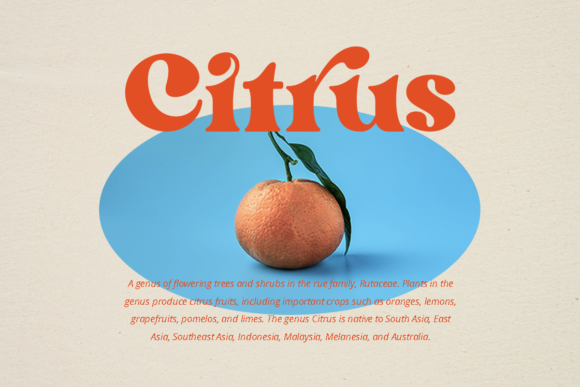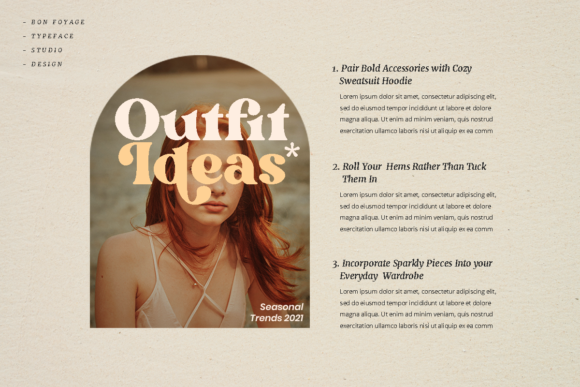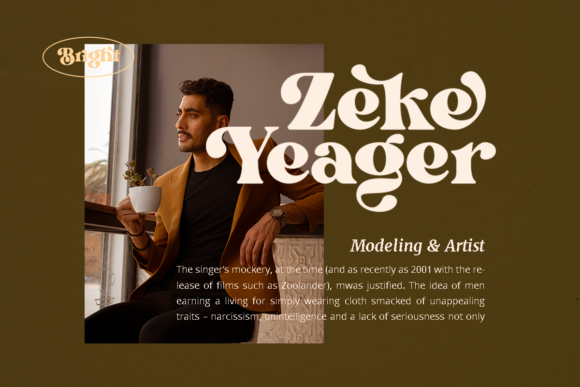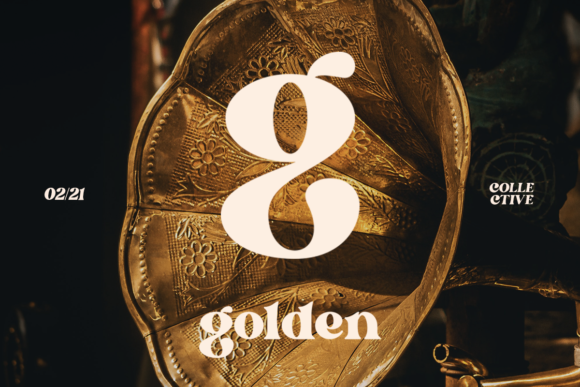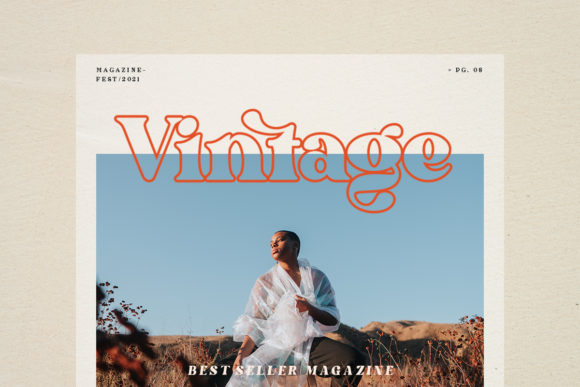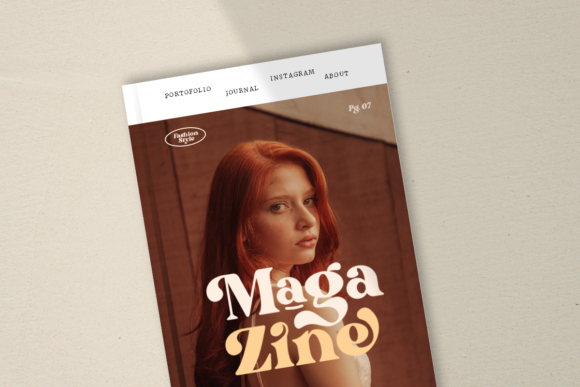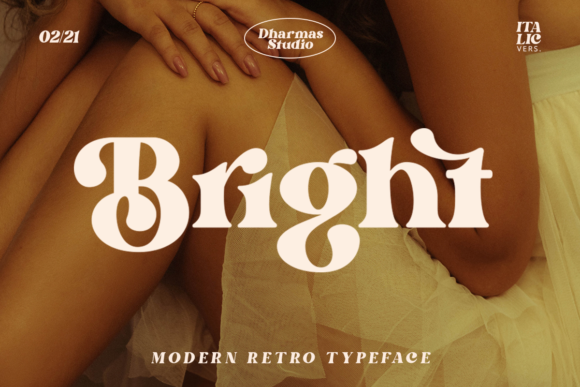
The Retro Revival: Uncovering the Charm of Bright Font
I’ll never forget the struggle I faced while working on a vintage-themed project for a client. The brief was simple: create a design that screams 1960s, but with a modern twist. The catch? I had to find the perfect font that embodies both retro and contemporary vibes. After hours of scouring through font libraries, I stumbled upon Bright Font – a stylish serif font that instantly became my design BFF. In this article, I’ll share my love for Bright Font, its features, and how to make the most of it in your designs.
First Impressions: What I Love About Bright Font
Bright Font is a stunning serif font that effortlessly blends modern and retro aesthetics. Here are a few things that make it stand out:
- ✨ Unique Alternates and Ligatures: With over 50 unique alternates and ligatures, Bright Font offers endless possibilities for customization. Its PUA encoding makes it easy to access these features.
- ✅ Clear and Bold: The font’s clarity and boldness make it perfect for headlines, titles, and emphasis text.
- 🎉 Fun and Playful: Bright Font’s quirky personality shines through in its design, making it ideal for creative projects that require a touch of whimsy.
The Not-So-Perfect: Small Quirks and Limitations
While Bright Font is an excellent choice for many design projects, it’s not without its limitations:
- 🤔 Limited Use in Body Text: Due to its bold and playful nature, Bright Font might not be the best choice for lengthy body text. It’s better suited for headings, titles, and emphasis text.
- ⚠️ Dependence on OpenType Features: To access the font’s advanced features, you’ll need to use software that supports OpenType features, such as Adobe Creative Cloud applications.
The Designer Inspiration Behind Bright Font
Bright Font was designed with the goal of capturing the essence of retro design while infusing it with a modern twist. Its creator drew inspiration from the iconic typography of the 1960s and 1970s, combined with a dash of playfulness and whimsy. The result is a font that’s both nostalgic and fresh.
| Font Name | Bright Font |
| Author | Dharmas Studio |
| What is Bright Font’s encoding? | Bright Font is PUA encoded, making it easy to access its advanced features. |
| Is Bright Font suitable for body text? | While Bright Font can be used for body text, its bold and playful nature makes it better suited for headings, titles, and emphasis text. |